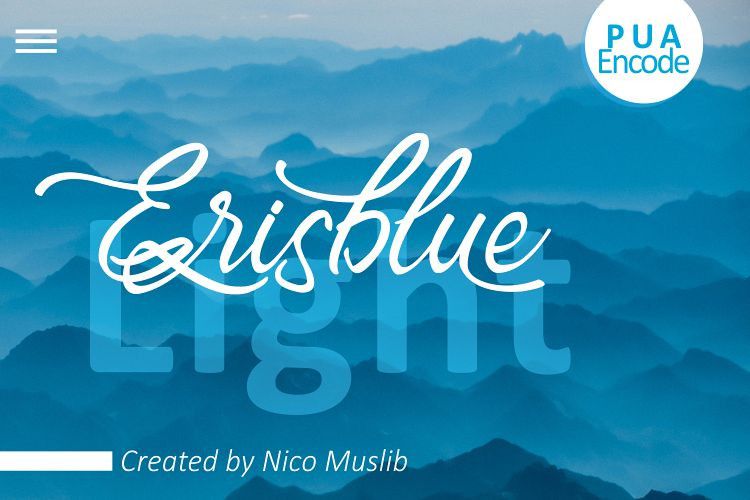
Erisblue Light Font
Erisblue Light an excellent font for modern hand lettering logo or headline/display design.
Suitable for any design need: Modern advertising design, poster quote, logo, branding, book cover title, editorial design, card custom, mug, pillow t shirt,